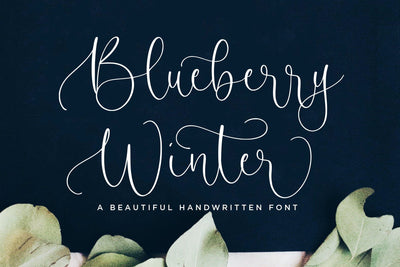
Blueberry Winter Beautiful Handwritten Font
Introducing by Letterative Studio : Blueberry Winter Font
Blueberry Winter is a Beautiful Handwritten Font
Blueberry Winter is a beautiful handwritten script font. Whether you’re using it for crafts, digital design, presentations, or making greeting cards, this font has the potential to become your favorite go-to font, no matter the occasion!
- Lowercase Ending Swash
- Alternates in some Lowercase